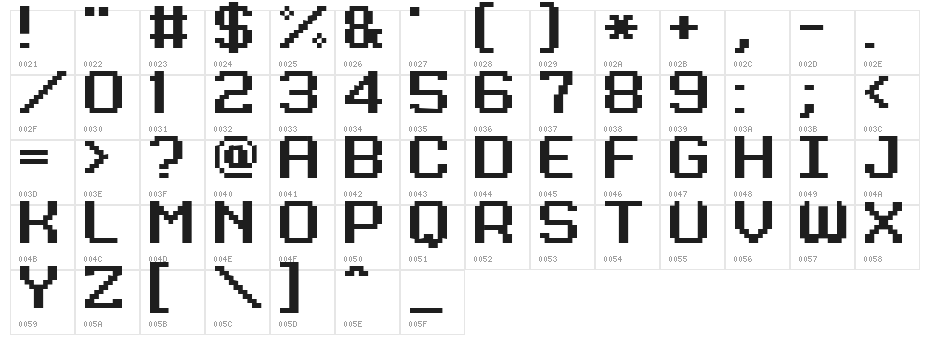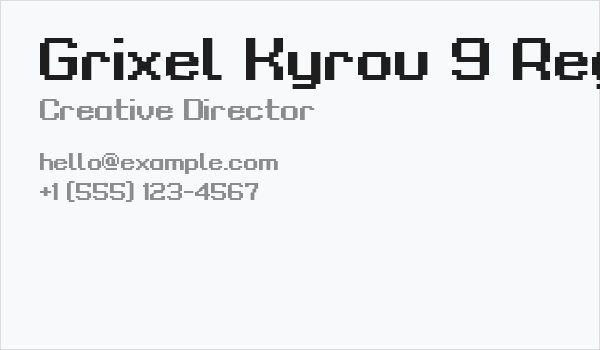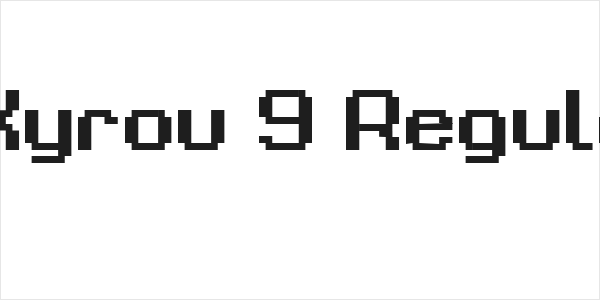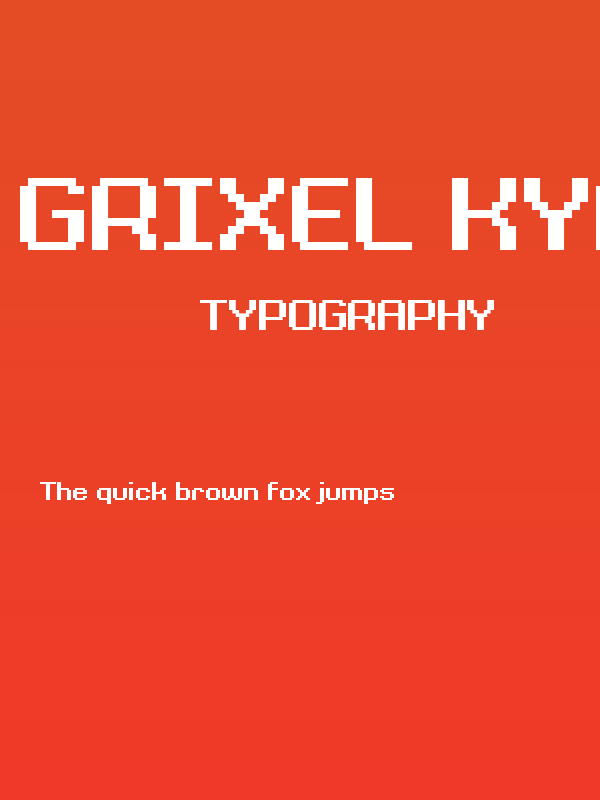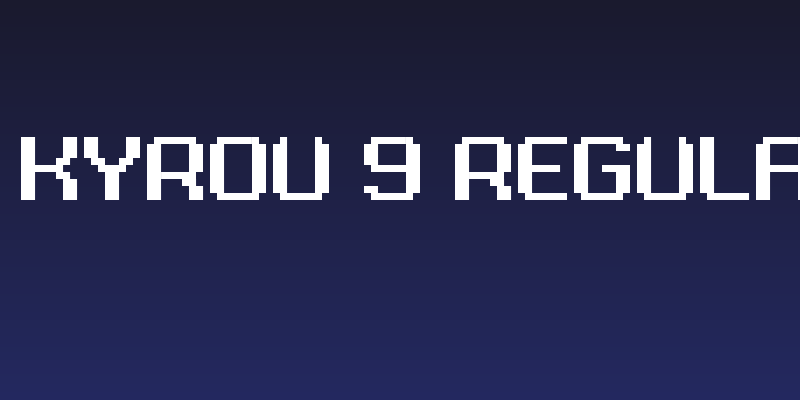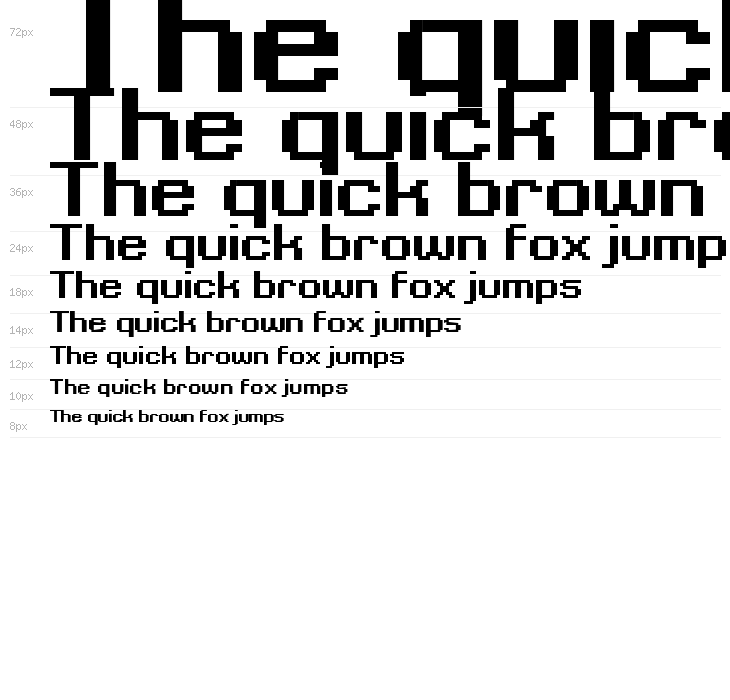
Grixel Kyrou 9 Regular Bold Font
Grixel Kyrou 9 Regular Bold Description
This font features a bold, pixelated style reminiscent of early digital or video game typography. The characters are uniformly square with sharp edges, giving it a distinctly retro and digital appearance. The uppercase and lowercase letters maintain a consistent height, enhancing its monospaced feel. Numbers and special characters follow the same design principles, ensuring uniformity across all glyphs. This style is ideal for projects that aim to evoke nostalgia or a tech-oriented theme.
| Overall Style | Retro |
| Use Case | Headlines, Logos, Digital Art |
| Proposed Projects | Perfect for retro video games, tech-themed designs, digital art, and nostalgic branding. |